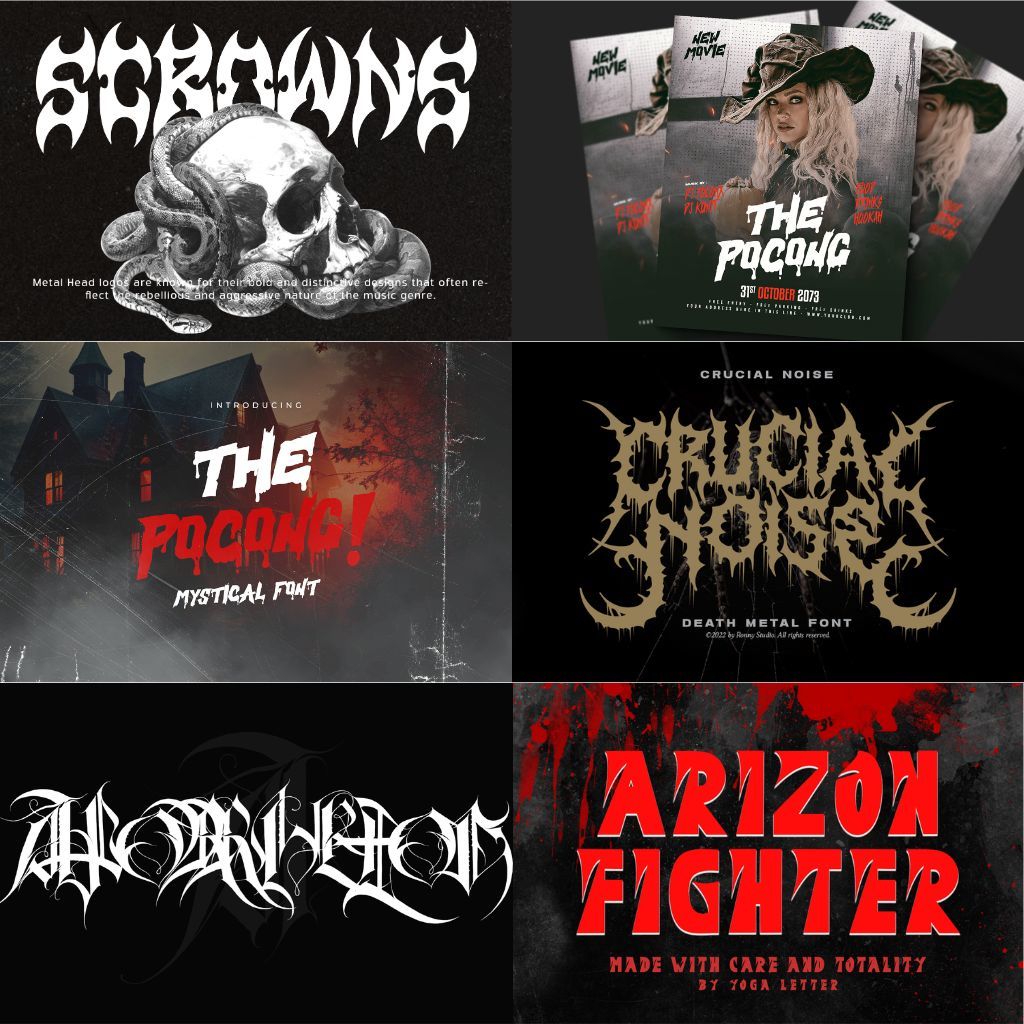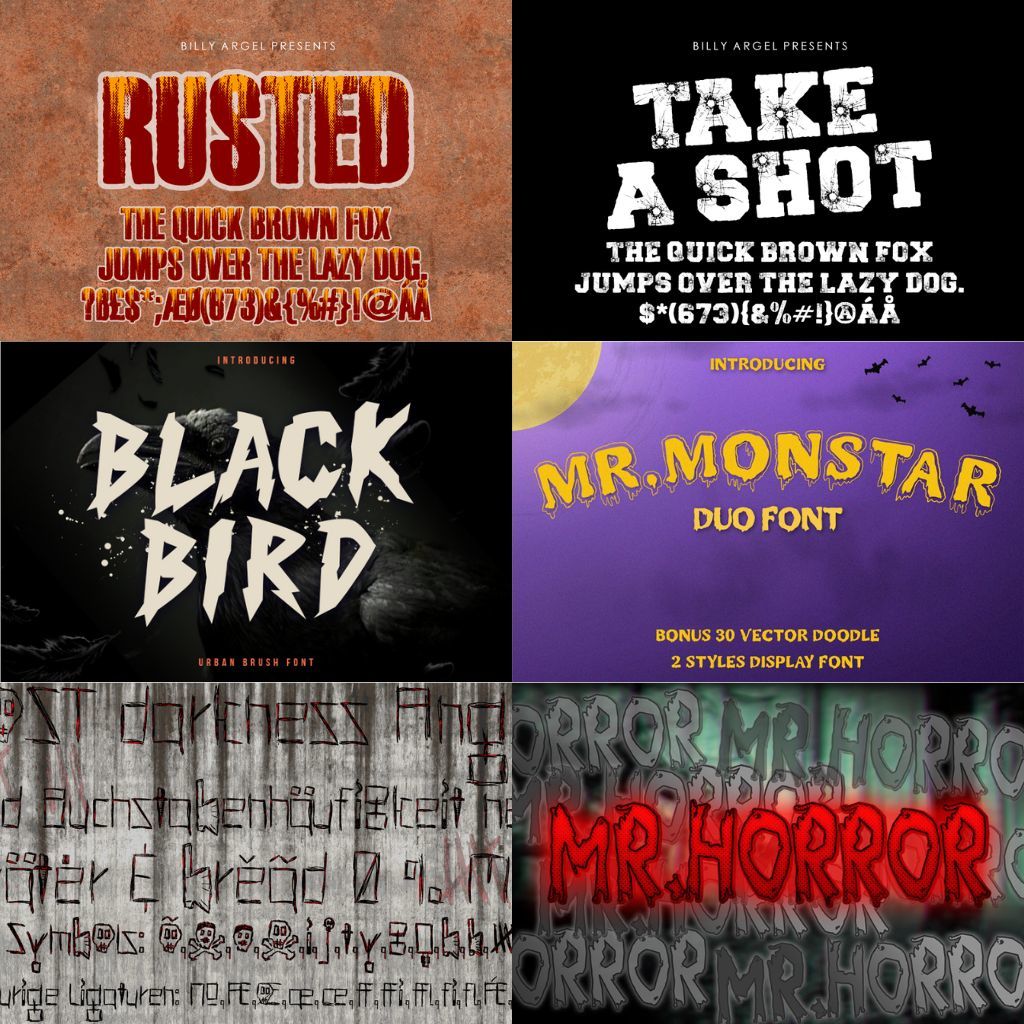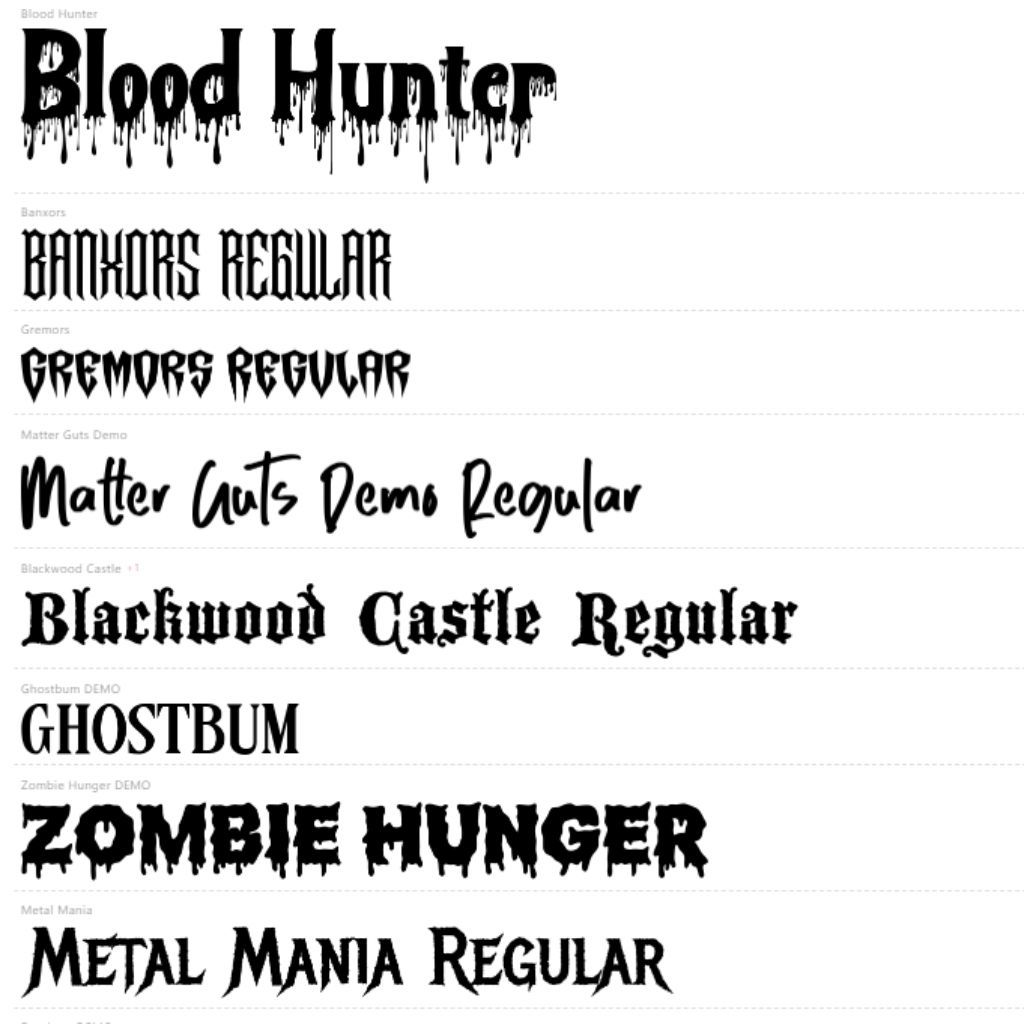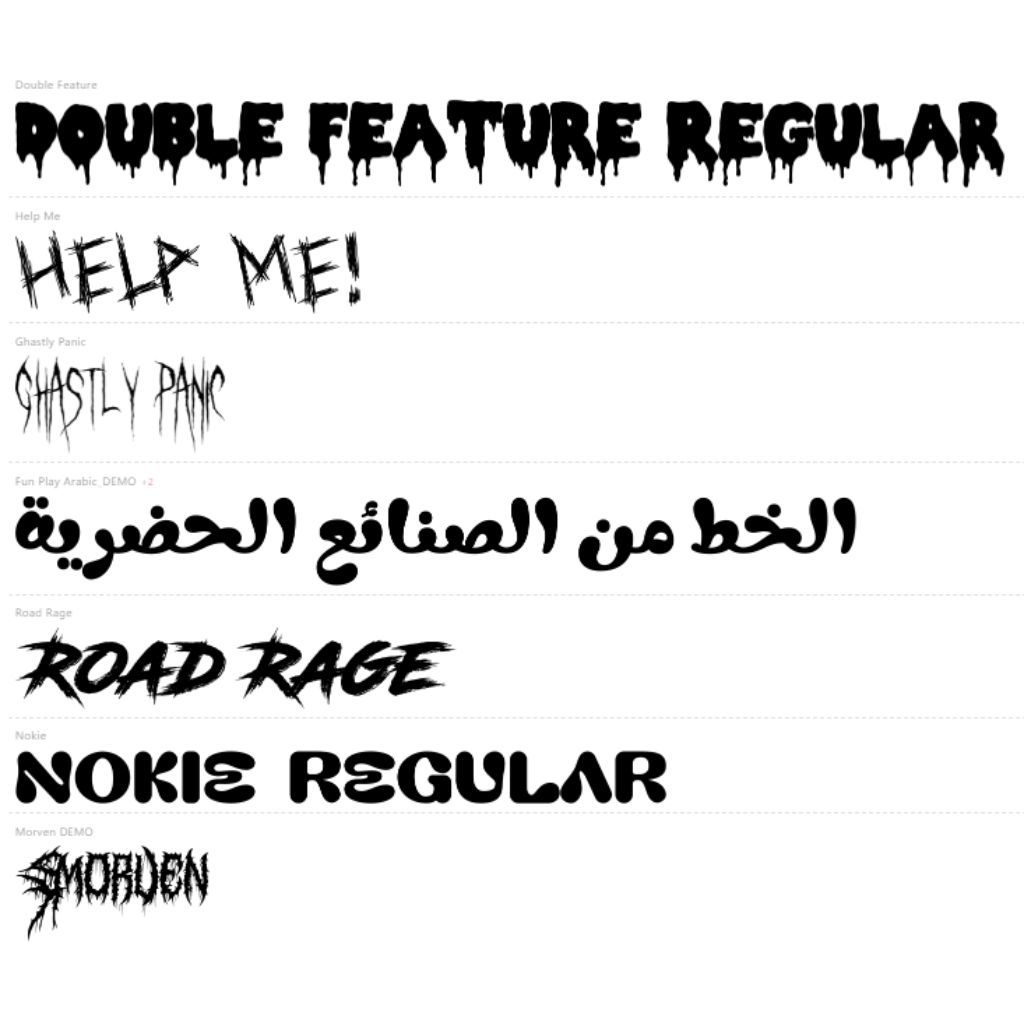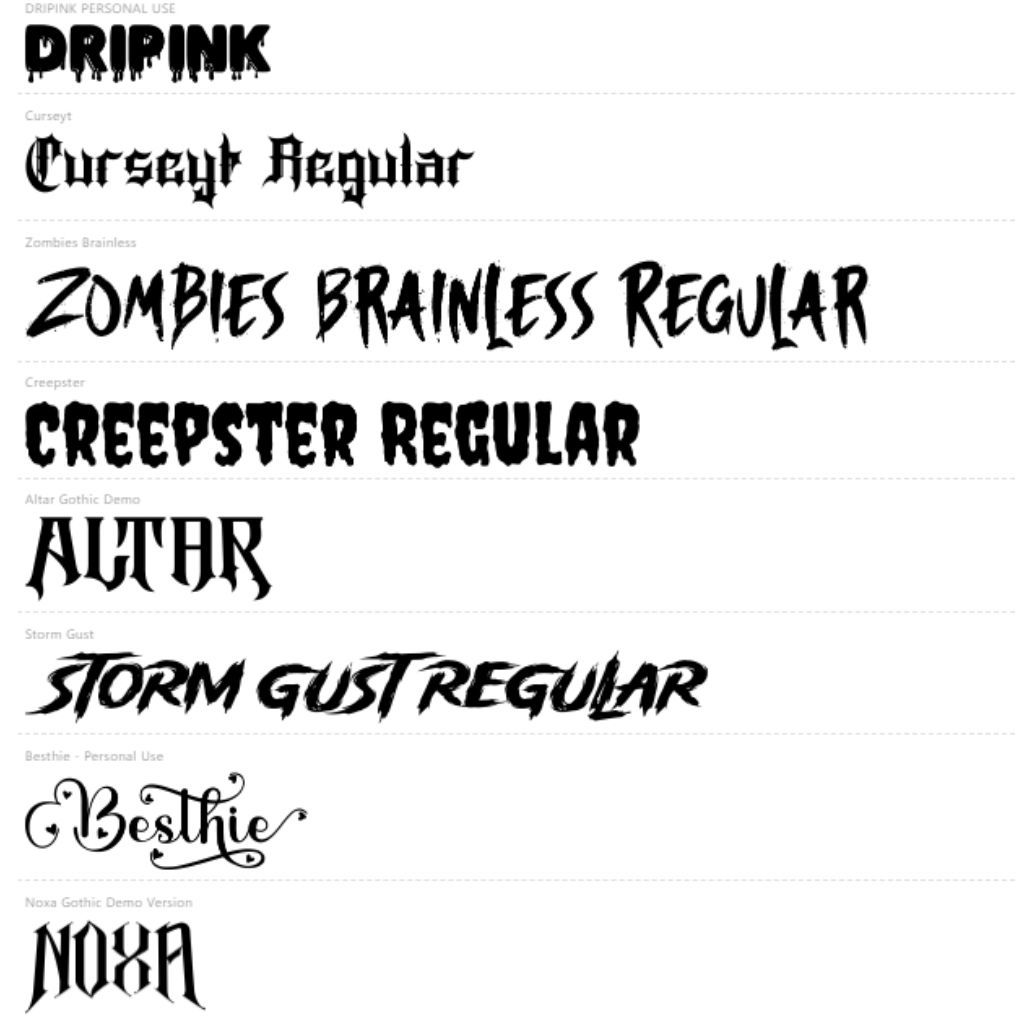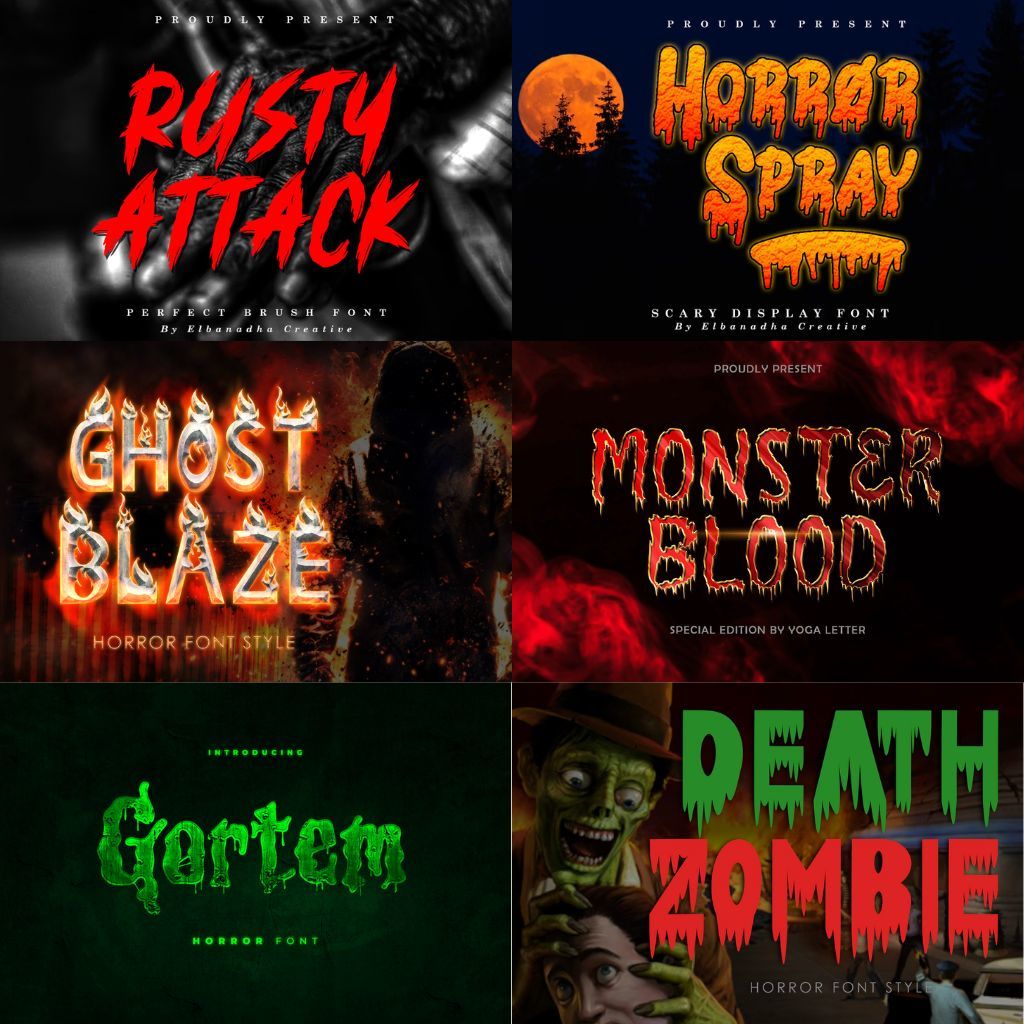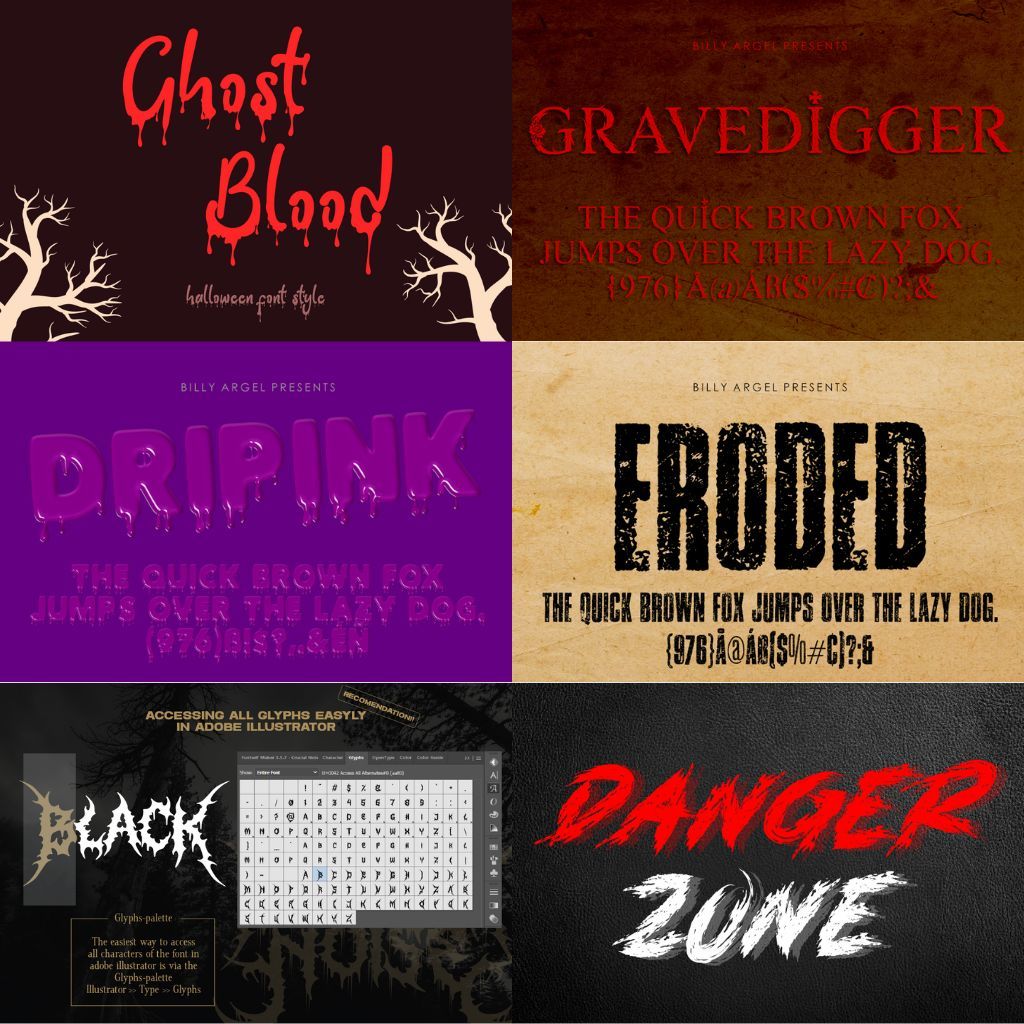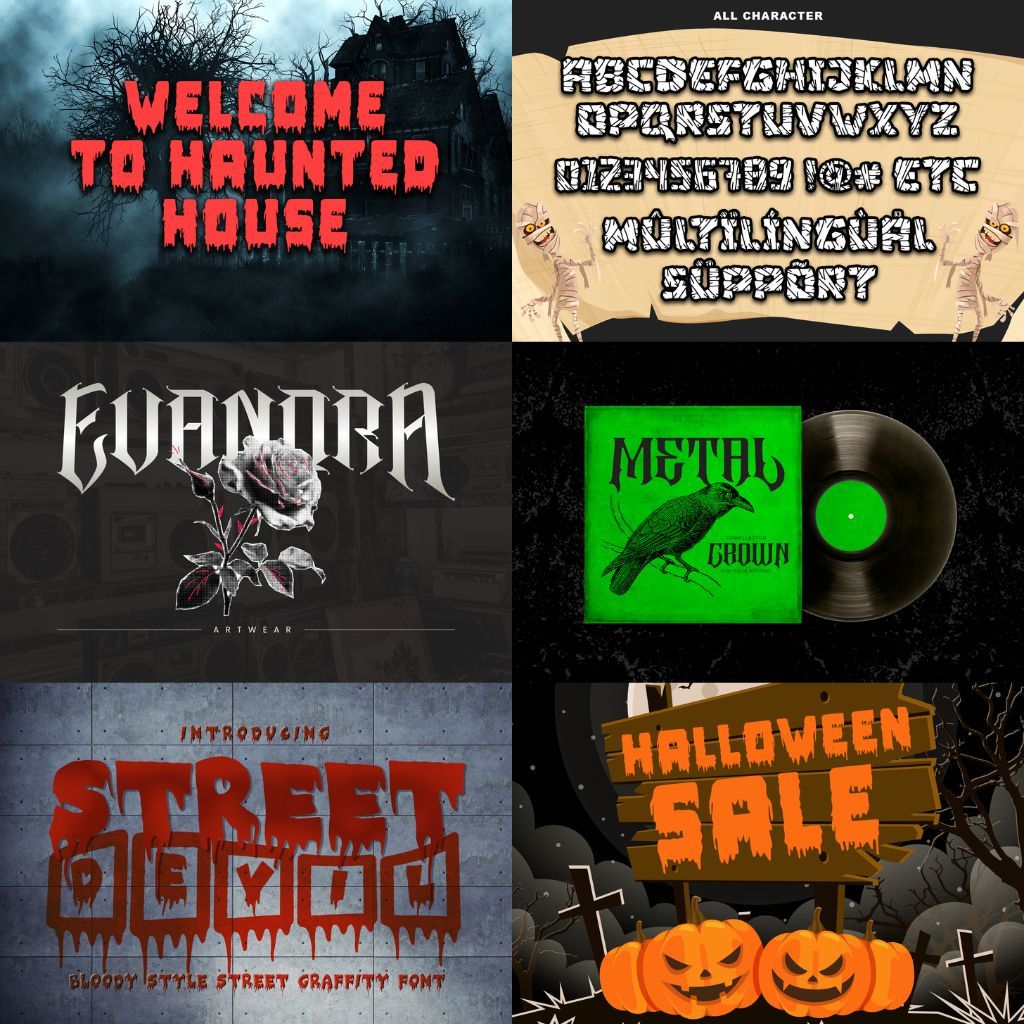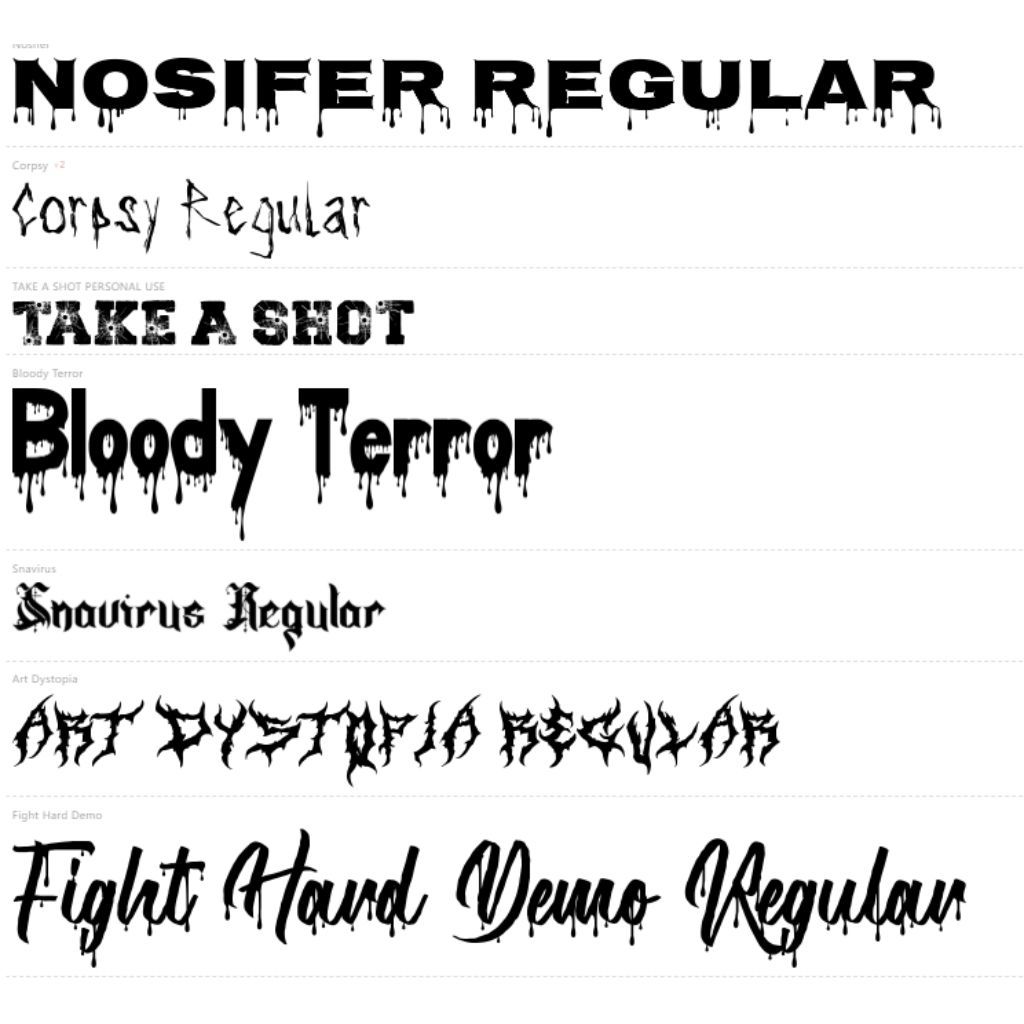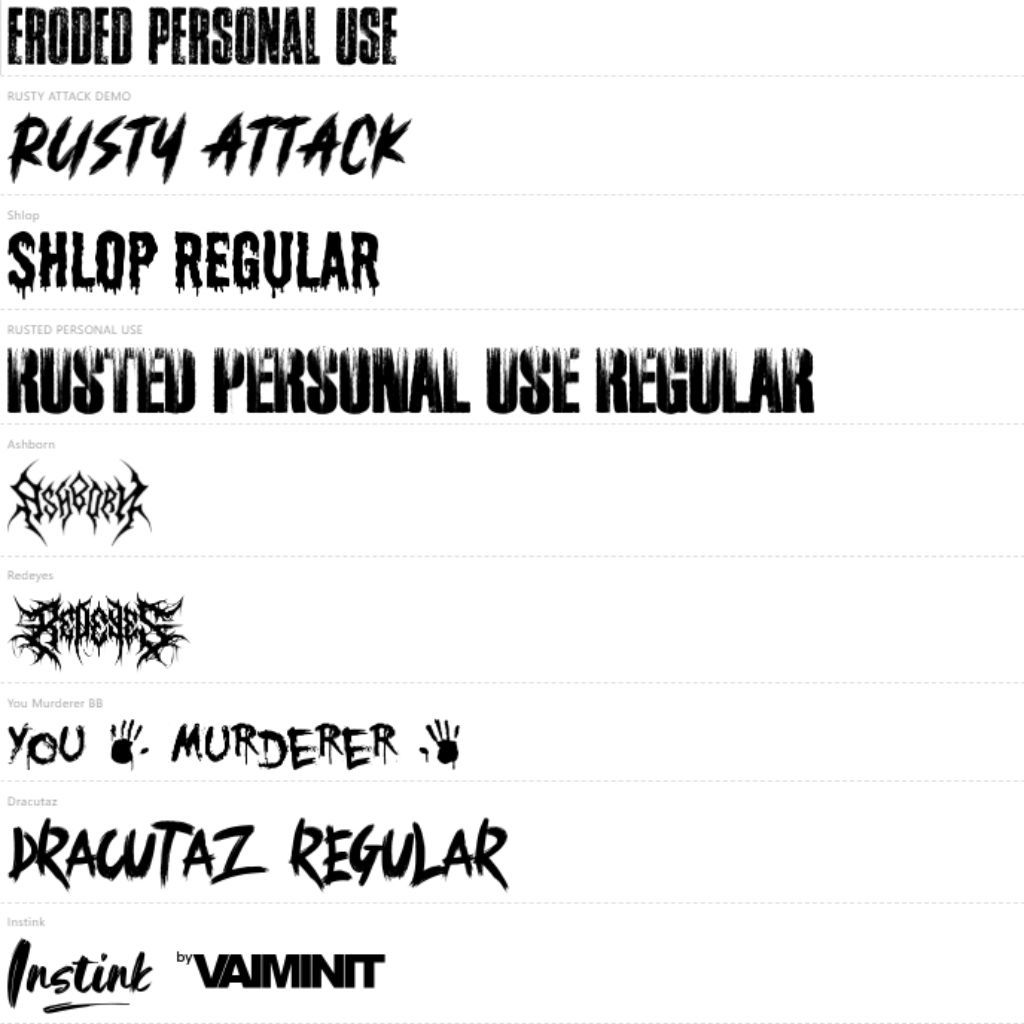
Halloween Font 200+ Bundle Spooky Halloween Scary Canva Circuit Witch Font
Halloween Font 200+ Bundle, Spooky Halloween Font, Scary Halloween Fonts, Canva Fonts, Circuit Fonts, Distressed Dripping Fonts, Witch Font
Delve into the haunting allure of the Halloween Font 200+ Bundle, a treasury of typographic delights that promises to elevate your Halloween projects with a touch of eerie elegance. This captivating collection offers an expansive array of spooky Halloween fonts designed to infuse your creations with an air of mystery and suspense. Whether you're crafting bewitching invitations or spine-chilling banners, this bundle has the perfect scary Halloween fonts to stir the imagination.
Transport yourself into the world of the supernatural with our witch font, its bewitching curves perfect for enchanting any Halloween-themed project. Experience the unique charm of distressed dripping fonts reminiscent of haunted tales shared around a flickering campfire. Compatible with popular design platforms, these Canva fonts and Circuit fonts promise versatility, making it seamless to add a sprinkle of horror to your crafts. Each font is a bewitching blend of creativity, waiting to sprinkle a dash of fearsome delight on your Halloween festivities.